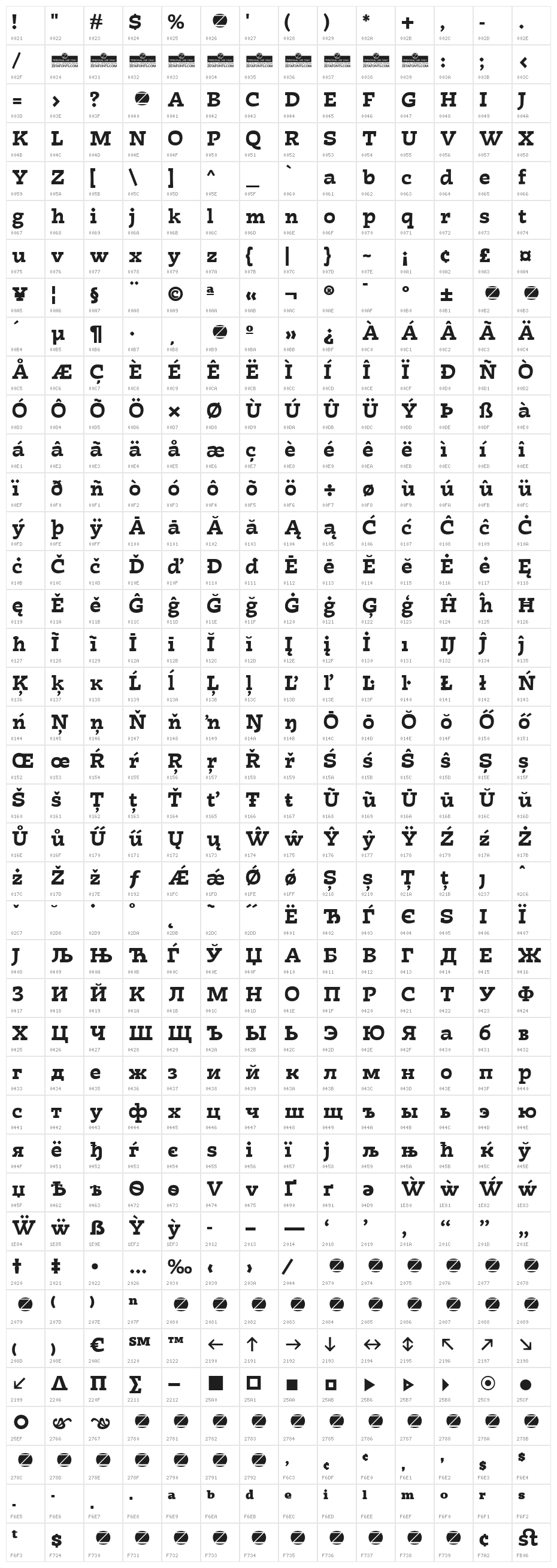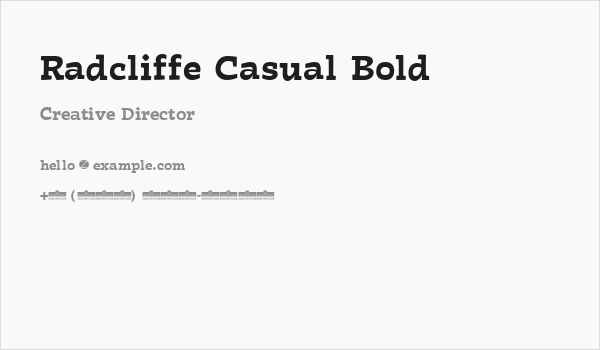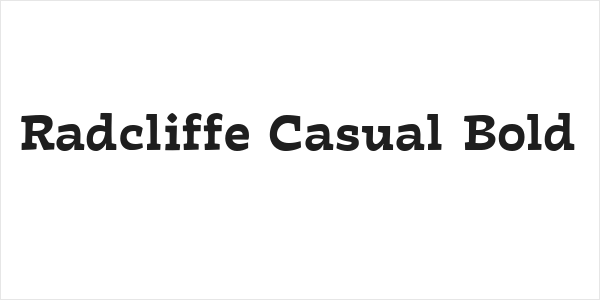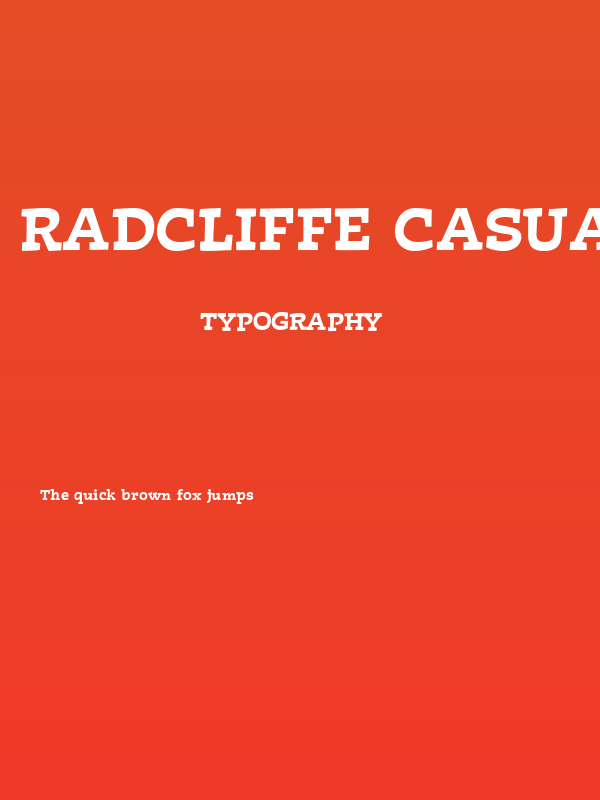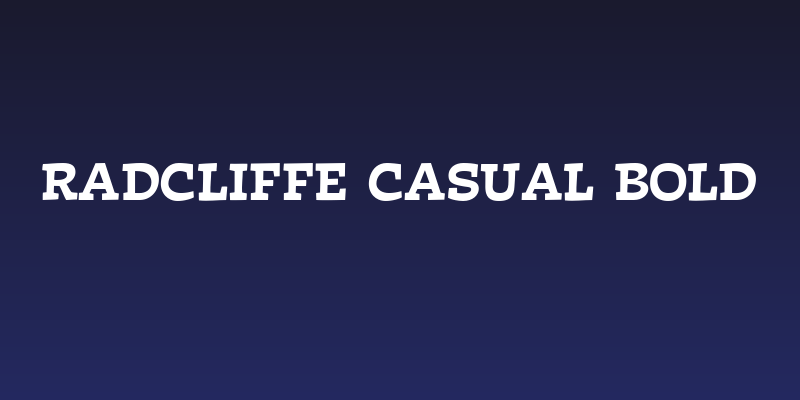
Radcliffe Casual Bold Font
Radcliffe Casual Bold Description
This font presents a bold and confident style with a strong presence. The characters are well-defined with a slab serif design, giving them a sturdy and robust appearance. The uppercase letters are particularly striking, with a uniform height and width that convey a sense of balance and stability. The lowercase letters maintain the same boldness, ensuring readability and consistency across different text sizes. The numerals are clear and distinct, making them suitable for various applications. Special characters are included, adding versatility to the font's usage. Overall, this font combines traditional serif elements with a modern boldness, making it suitable for impactful headlines and branding.
| Proposed Projects | Ideal for branding, headlines, posters, and any project requiring a strong, impactful typeface. |